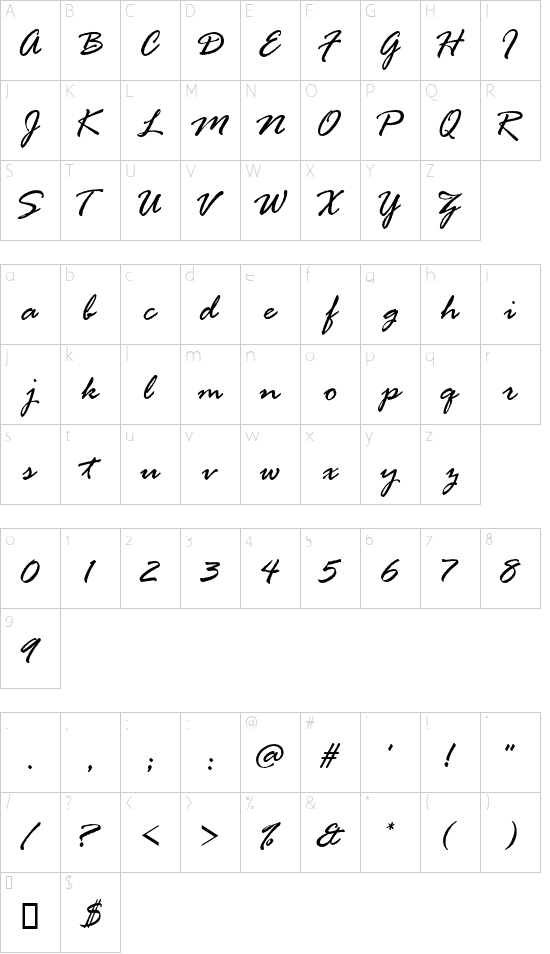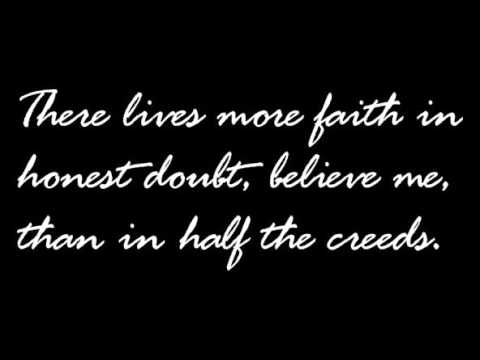
Rage Italic Font
Rage Italic Lorem Ipsum is simply dummy text of the printing and typesetting industry Lorem Ipsum has been the industry's standard dummy text ever since the 1500s, when an unknown printer took a galley of type and scrambled it to make a type specimen book. Rage Italic is a casual brush scripted typeface designed by Ron Zwingleburg in 1984 and published by ITC/Letraset A parchment style script, Rage Italic is 51 Professional Rage Italic Let Fonts to Download Please note If you want to create professional printout, you should consider a commercial font. Rage Italic is the work of American designer Ron Zwingelberg It was one of the first casual brush style scripts with a rough, textured edge The initiallike capitals complement a lowercase alphabet which links together to create the look of true handwriting Rage Italic font is ideal for work that should have the spontaneous look of pen writing on parchment.
#2 Chronos Quote Oct 14, 16 at 52 As there are bazillions of script fonts, perhaps do some searching on MyFonts #3 Menhir Quote Oct 17, 16 at 0909. It's often much easier to just use italic characters rather than normal characters with a whole bunch of logic built in to handle styling of those characters (special text editors, etc) So that's how we got these italic "fonts" (even though they're not actually fonts). Rage™ Italic Preview Here is a preview of how Rage™ Italic will look For more previews using your own text as an example, click here Categories alternates Post navigation.
Rage Italic was designed by Ron Zwingelberg and published by ITC Rage Italic contains 2 styles and family package options More about this family. #2 Chronos Quote Oct 14, 16 at 52 As there are bazillions of script fonts, perhaps do some searching on MyFonts #3 Menhir Quote Oct 17, 16 at 0909. Rage Italic LET Plain Rage Italic LET Plain1 0 1 0 RageItalicLetPlain.
Buy and download Rage Italic Com, and other highquality fonts for Mac and Windows Publishing Fonts are available in TrueType, OpenType and web type formats From all the major foundries at discount prices. Rage Italic font is a popular style is one of the first casual brush script styles with a rough textured edge Licensing and redistribution info Font redistribution FAQ for Windows License Microsoft fonts for enterprises, web developers, for hardware & software redistribution or server installations. Rage Italic LET Plain10 Free Font Download Rage Italic LET Plain10 font free for Windows and Mac We have a huge collection of around 72,000 TrueType and OpenType free fonts, checkout more on.
Big, bold header written with Rage Italic web font Lorem Ipsum is simply dummy text of the printing and typesetting industry Lorem Ipsum has been the industry's standard dummy text ever since the 1500s, when an unknown printer took a galley of type and scrambled it to make a type specimen book. Has been added to your font request fonts have been added to your font request has been added to " " list VIEW HERE Rage™ Italic Family Add Family Foundry ITC Type Style Brush Script, Casual Script, Handwriting, Script Languages Com, Basic Latin, Latin Extended Sample ABC Sample Text Strings. Rage Italic Com Font by ITC Privacy Preference Center Active.
The Rage™ Italic font appears to be a vibrant brush script It is a striking design, with the power and grace of a lioness. 2 min ke čtení;. Rage™ Italic Font families The Rage™ Italic includes the following font families Rage Italic Std;.
Buy Rage Italic desktop font from ITC on Fontscom Italic Free Fonts Fonts Font Garden Italic Free Fonts Fonts Browse over 13,000 free truetype fonts by category 375 Free Bold, Italic Fonts · 1001 Fonts We have 375 free bold, italic fonts to offer for direct downloading · 1001 Fonts is your favorite site for free fonts since 01. #1 heart87 Quote Oct 14, 16 at 43 Does anyone know a font similar to Rage Italic, that's not this rough?. Rage is a trademark of International Typeface Corporation and may be registered in certain jurisdictions.